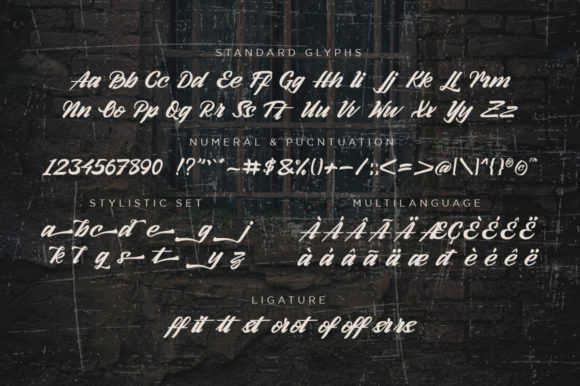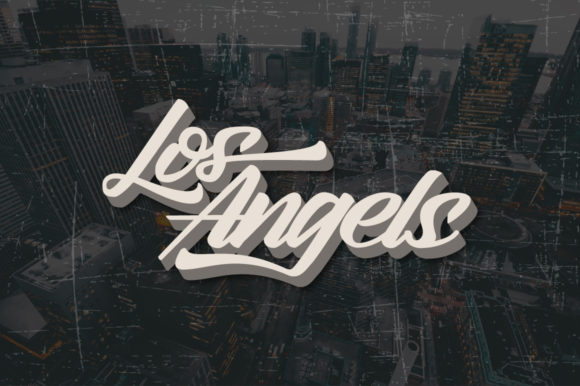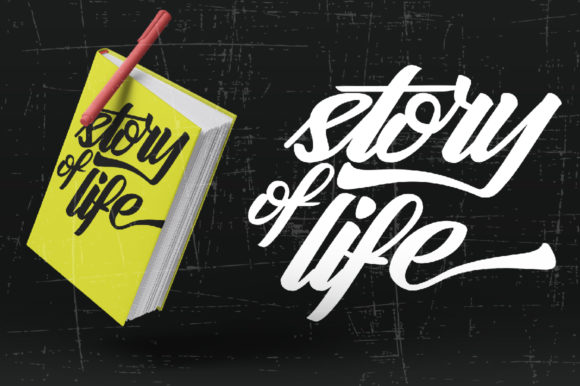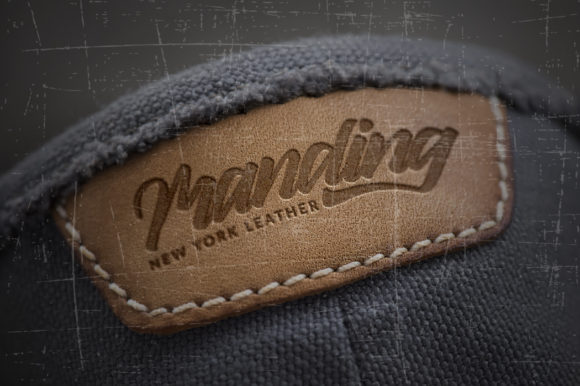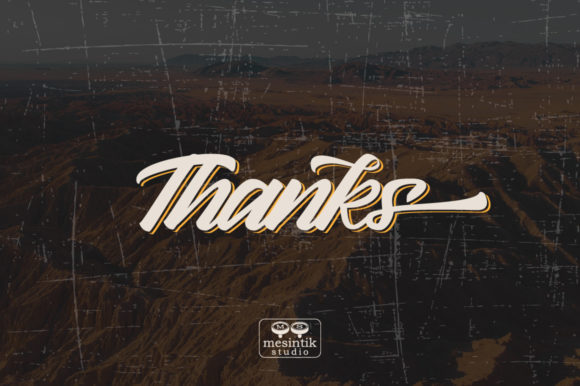
Introduction to Arlen Script Font
Arlen Script is a clean script brush font.
It’s great to use for book covers, logos, signatures, wedding designs, product packaging, special events, and many more .
Key Features of Arlen Script Font